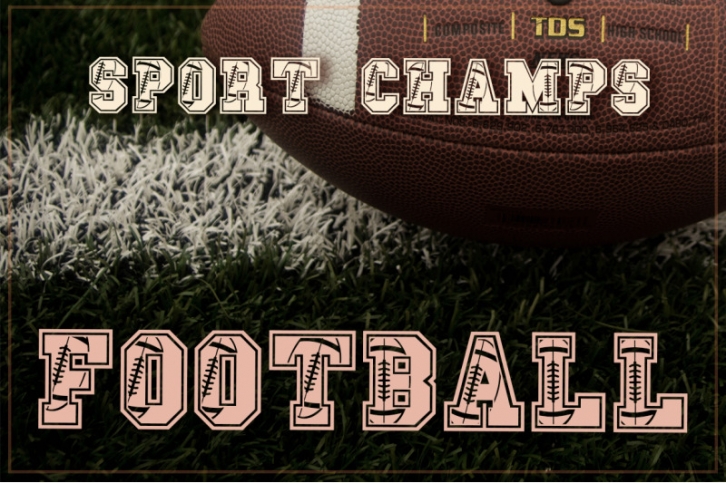
If you had seen my fonts before, you know that I like creating playful fonts. This font is no different.
It is a handcrafted font created from scratch, using as little points as possible to ensure you get the best results with minimum difficulty.
- Sport Champs Football. Includes uppercase A-Z letters, numbers and punctuation.